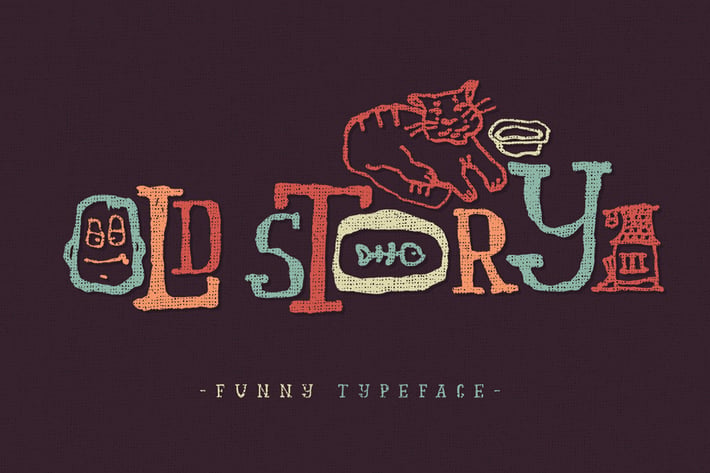
Old story typeface
Hello! Introducing "Old story" typeface with funny doodles. It's a handmade font with rough natural shape. All the graphical symbols you can find in a "glyphs" palette.